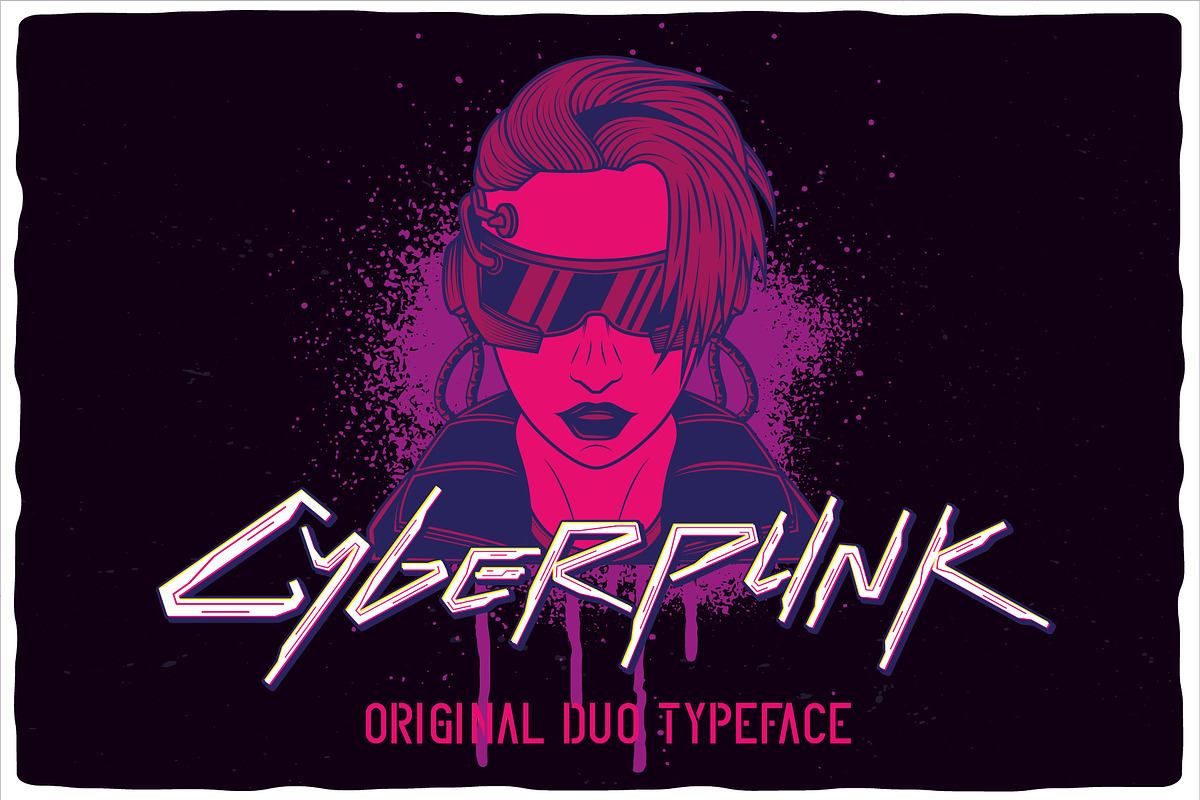
Cyberpunk Font Duo Free Download
Cyberpunk Font Duo Free Download is a futuristic and edgy typeface pair designed to electrify your designs with sci-fi energy and digital grit. Featuring a bold display font alongside a sleek modern companion, this duo is perfect for gaming graphics, tech branding, posters, album covers, UI design, and any project that embraces high-tech or dystopian aesthetics.
The sharp lines, neon-inspired styling, and glitch-ready vibe make this font duo ideal for capturing the essence of cyberpunk culture. Use them together for a dynamic typographic contrast or individually for bold statements and clean subtext.